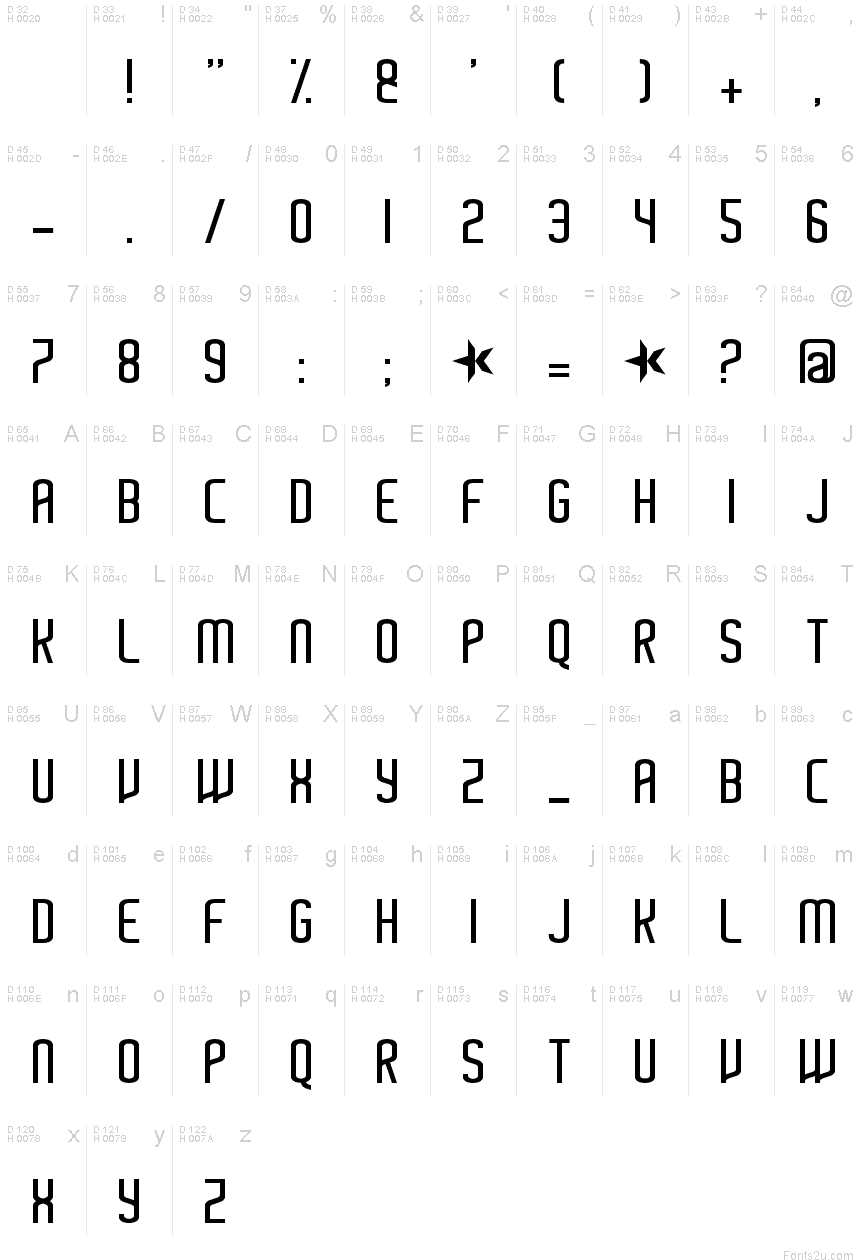
Ayherre is a free condensed sans serif with towering proportions, rounded stroke turns, and a distinctly unconventional drawing shaped by tight, upright forms. The letters are exceptionally tall and narrow.
Music and nightlife suit its poster-like intensity, especially around electronic music culture, making it a strong option for concert posters, club branding, and album artwork. Its rounded joins, deep curves, and unexpectedly clipped details can also bring a futuristic industrial theme to fashion graphics and event signage with a severe architectural edge.